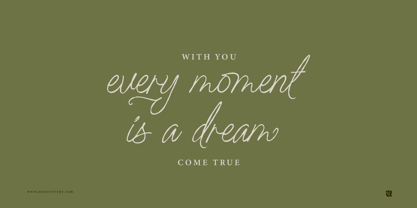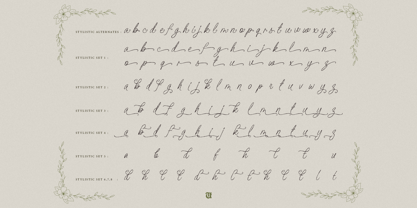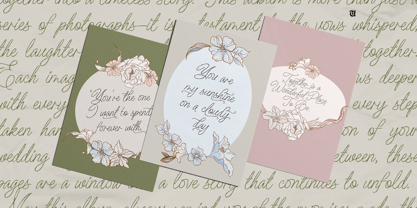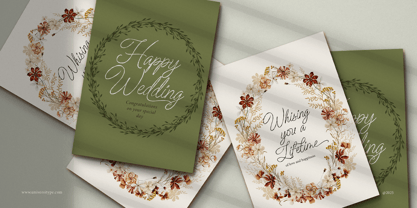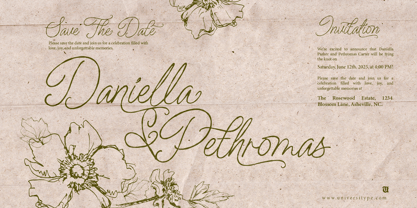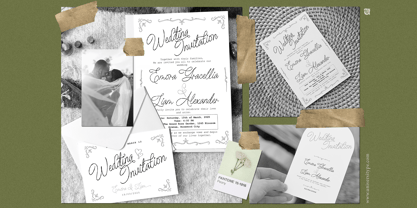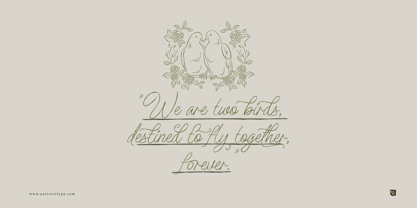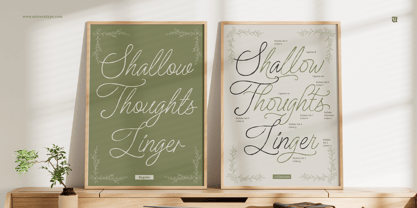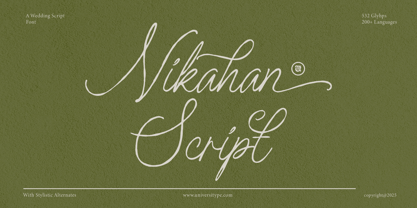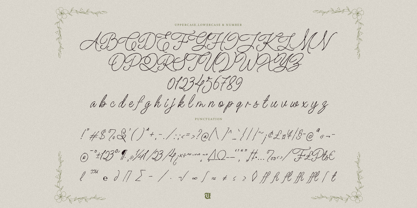
UT Nikahan Script
UT Nikahan Script, a beautiful wedding font with all the elegance of calligraphy. The flowing lines and fancy details make it perfect for creating romantic wedding invitations and stationery that will really wow your guests.
Target Audience:
This font is great for wedding planners, designers, and couples who want to add a bit of extra elegance and personal touch to their wedding stuff like invitations, save-the-dates, programs, and other wedding papers.
Key Features:
• Stylistic Alternates: There are different styles for each letter so you can mix and match to create a look that’s perfectly you.
• Multilingual Support: It works in over 200 languages, so it’s super versatile no matter where you’re getting married.
• Extended Glyph Set: With 532 glyphs, you’ve got tons of characters and symbols to play with.
• Ligatures: Some letters automatically connect in a fancy way, making the text look more natural and flowing.
Inspiration Behind UT Nikahan Script:
The font was inspired by traditional calligraphy and handwriting, capturing that special love and commitment feeling that’s at the heart of weddings. It’s a nice mix of classic elegance and modern simplicity, so it works for both traditional and contemporary wedding styles.
Usage Suggestions:
• Wedding Invitations: Make invitations that really stand out and make a romantic impression on your guests.
• Save-the-Date Cards: Use it for your save-the-dates to announce your special day in style.
• Wedding Programs: Design programs that match your wedding theme perfectly.
• Personalized Stationery: Create thank-you notes, menus, and other wedding stationery that shows off your personal style.